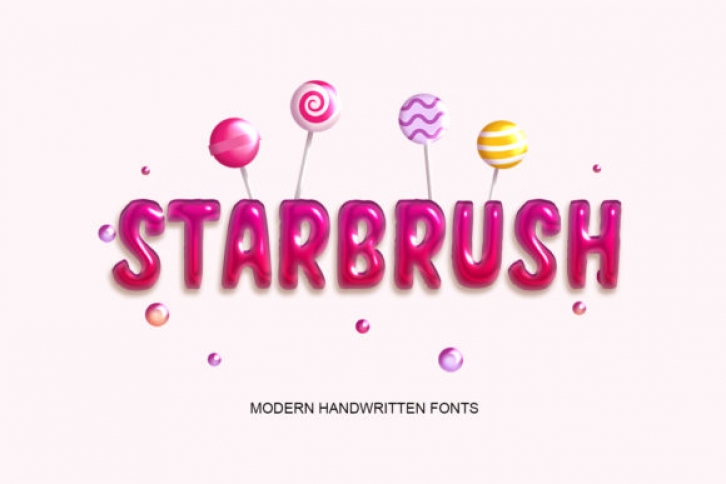
The Starbrush is a modern handwritten font. It was made gently using an artline brush pen. It has a natural, yet strong look with a sporty vibe.
It’s perfect for logos, newsletters, T-shirt design, branding, labels, clothing designs, posters, business cards, product packaging, greeting cards, T-shirts, blogs, and much more!